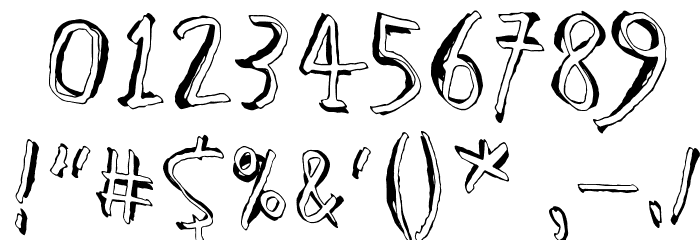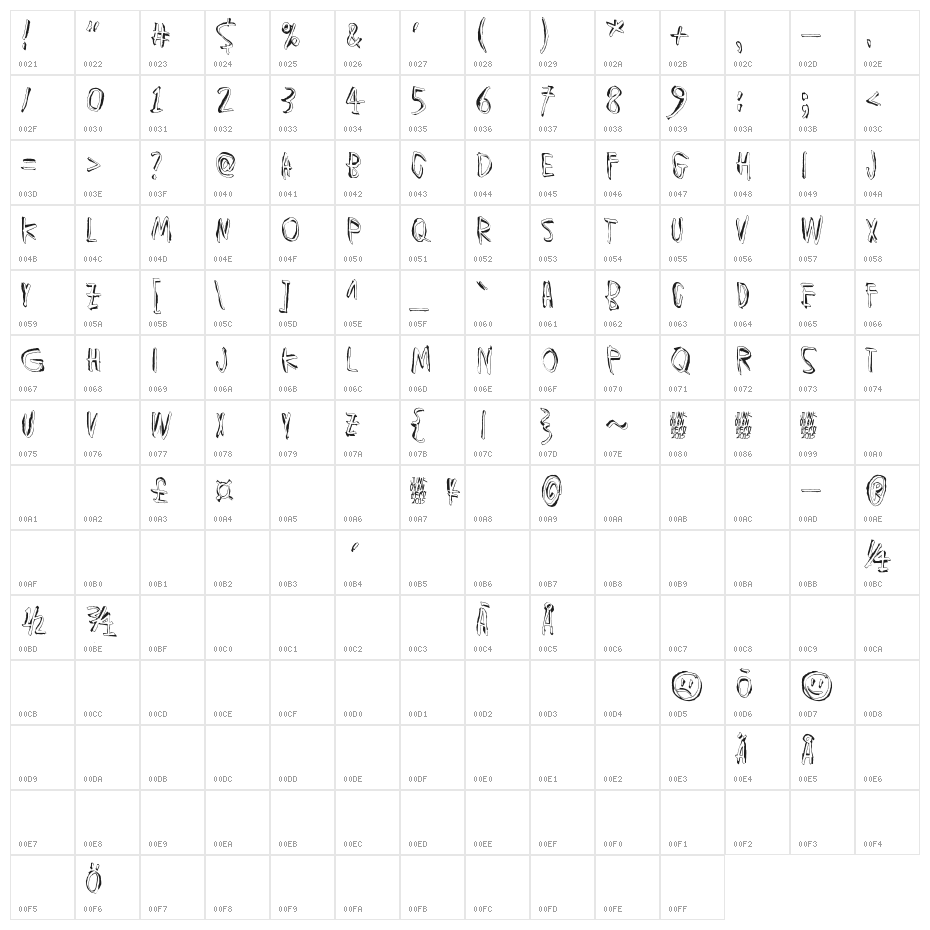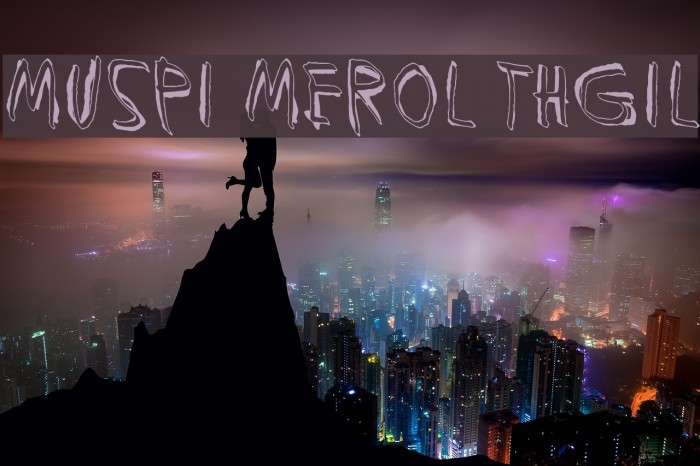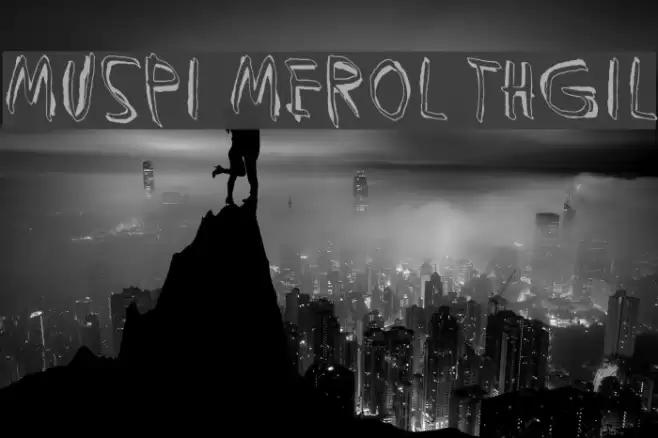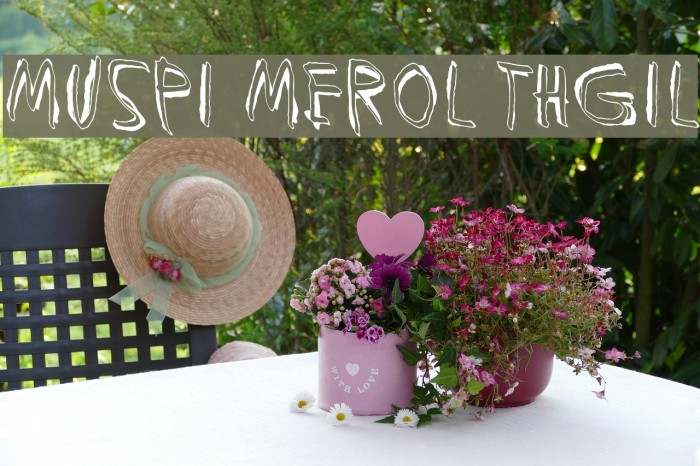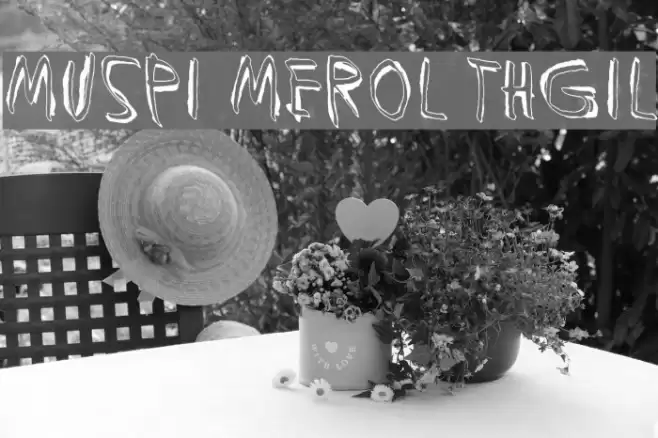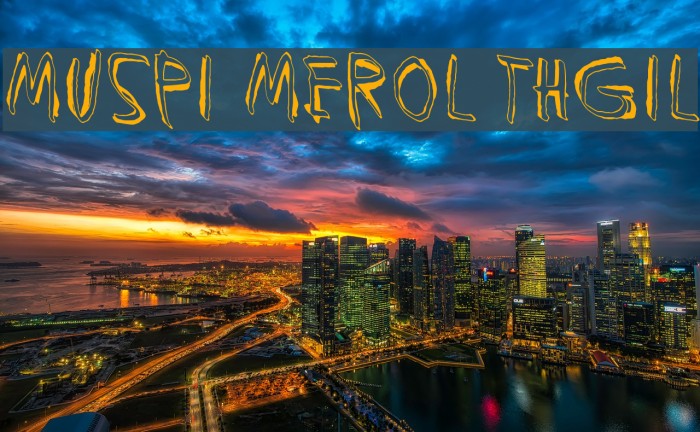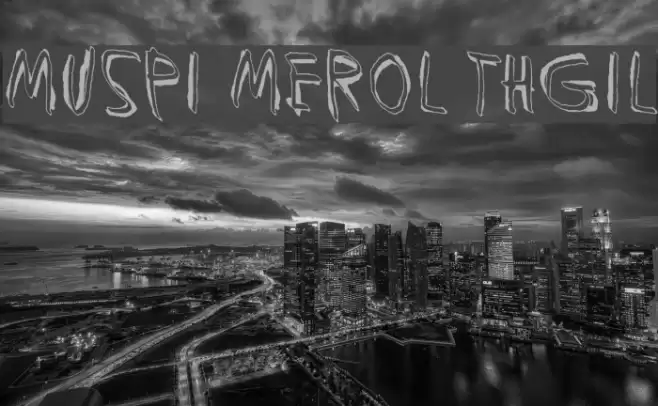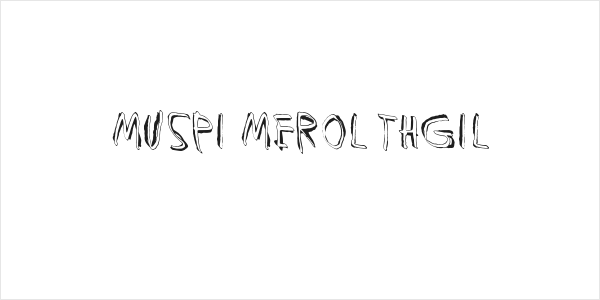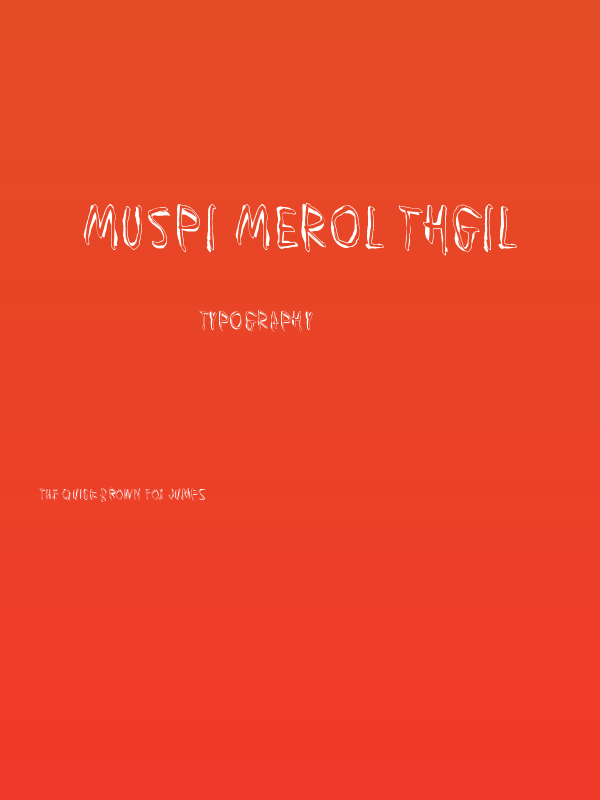
Muspi Merol Thgil Font
Muspi Merol Thgil Description
This font exhibits a bold and expressive style, characterized by its hand-drawn appearance. Each letter features uneven strokes and a slightly distressed look, giving it a raw and energetic feel. The uppercase and lowercase letters maintain a consistent style, with exaggerated curves and angles that create a sense of movement. The numbers and special characters follow the same aesthetic, ensuring a cohesive look across all elements. This font's unique and artistic design makes it stand out, perfect for projects that require a touch of creativity and individuality.
| Use Case | Logos, Posters, Creative projects |
| Proposed Projects | Ideal for creative projects such as posters, album covers, and artistic branding materials. |